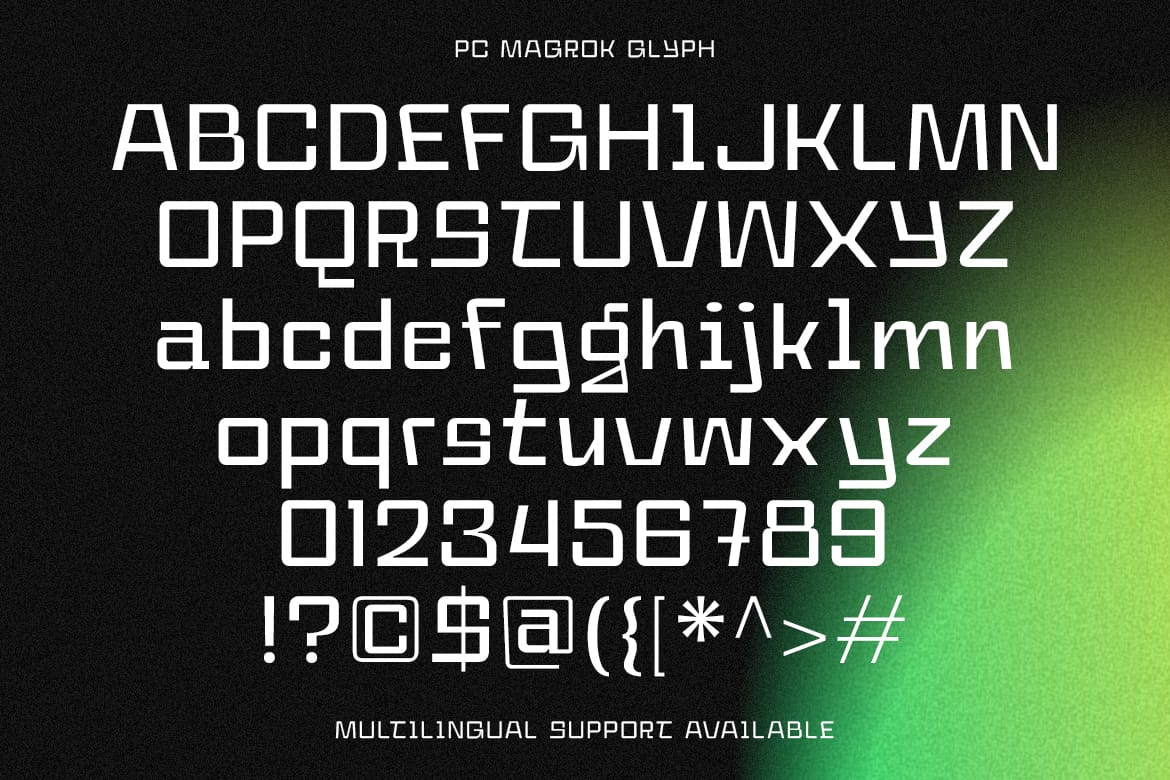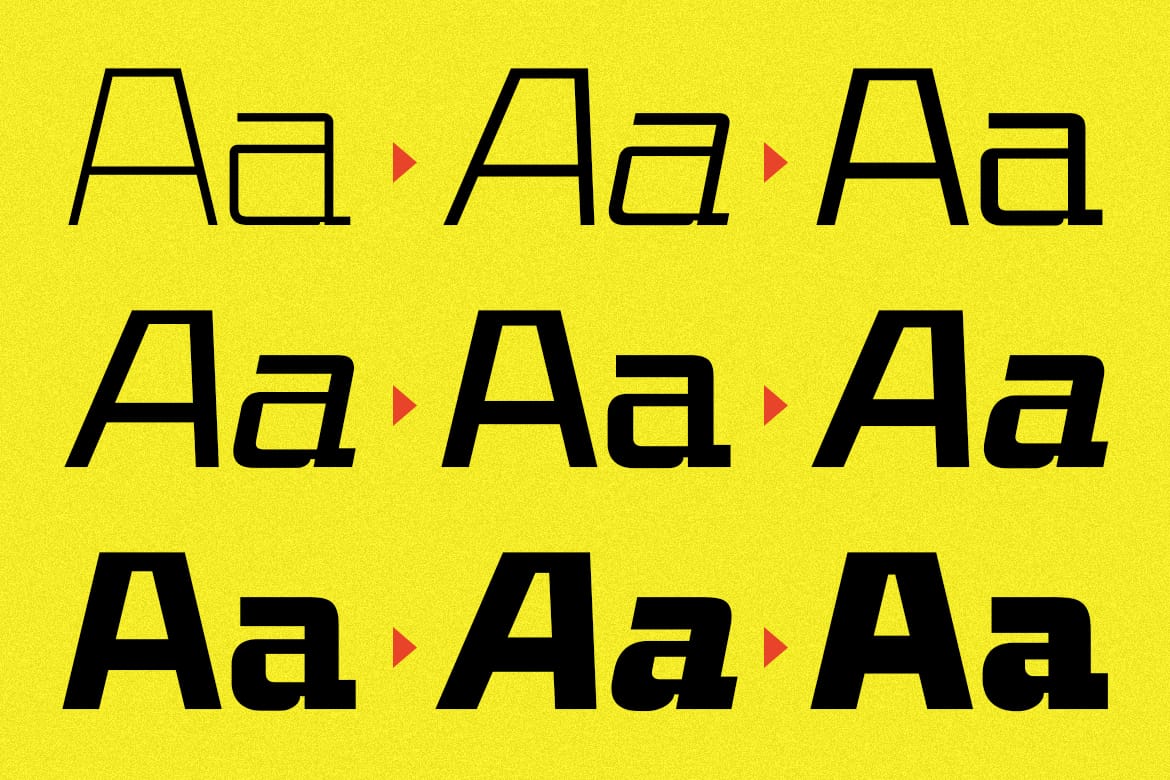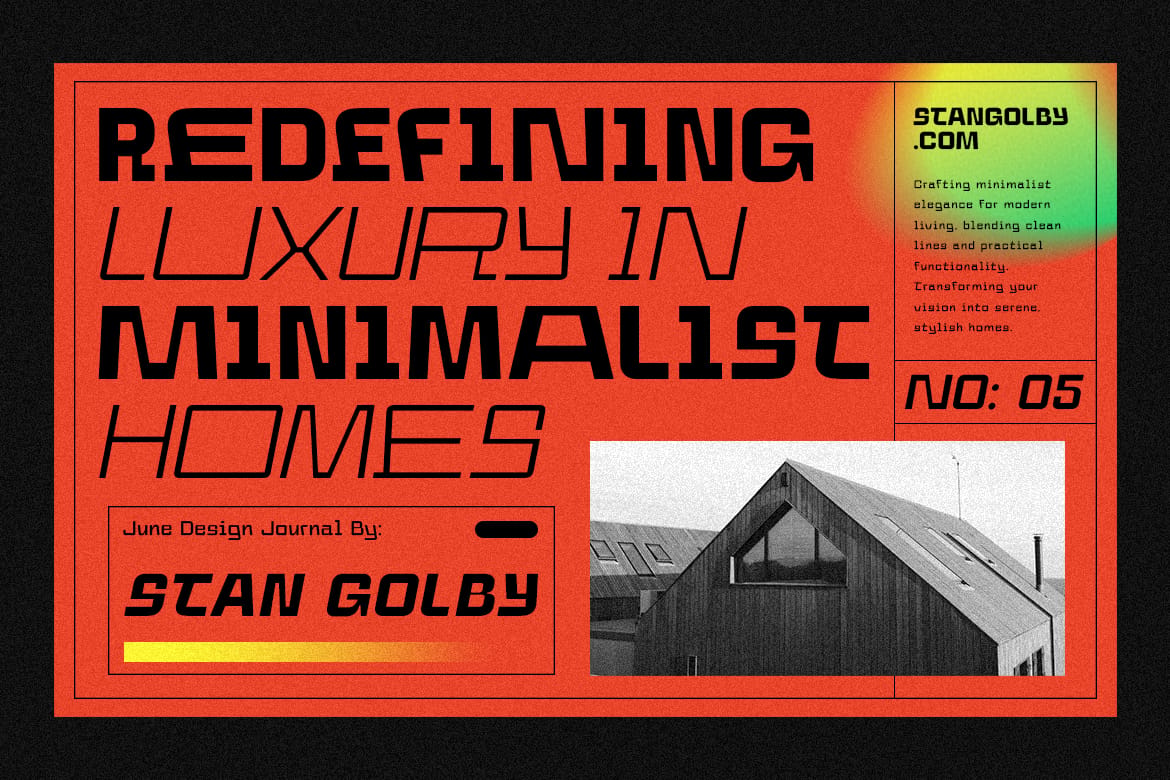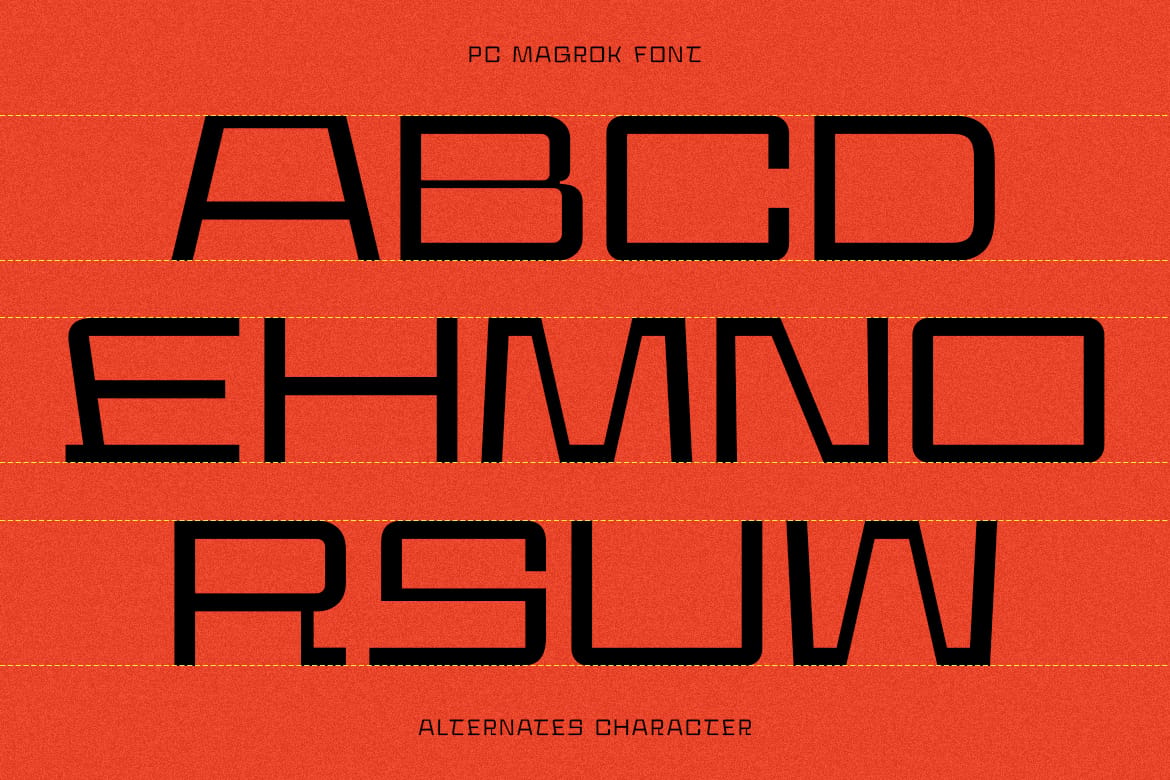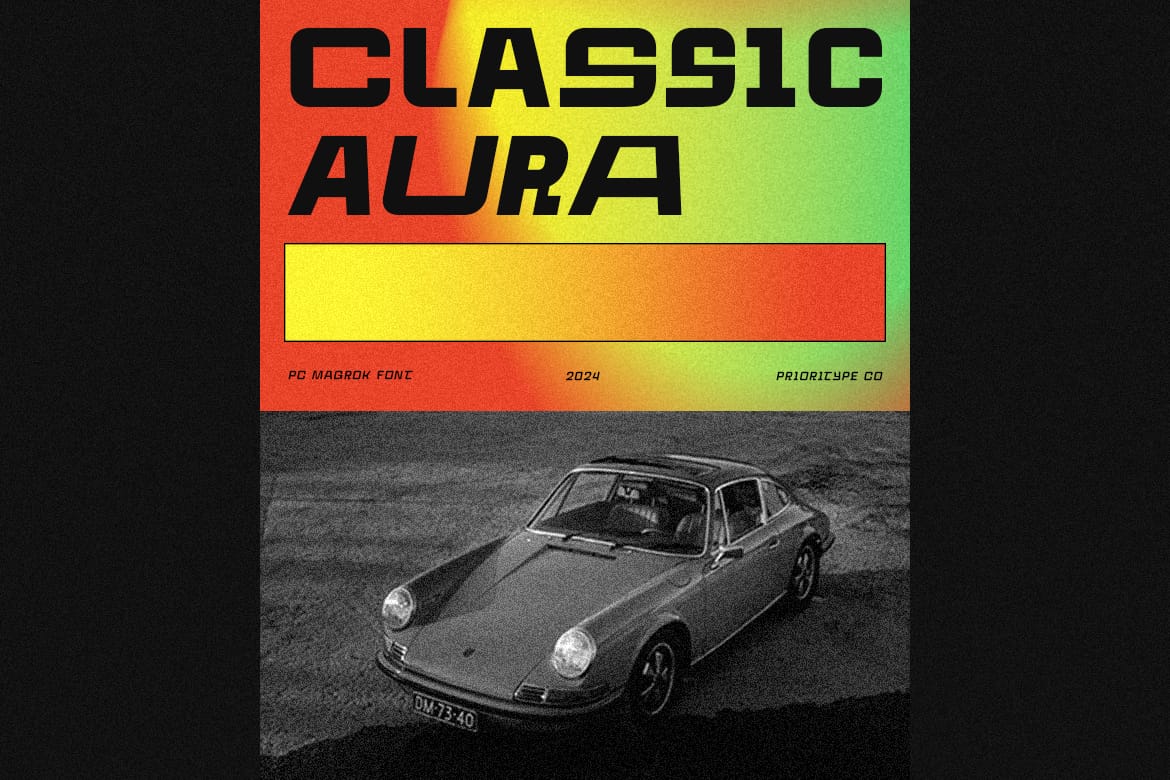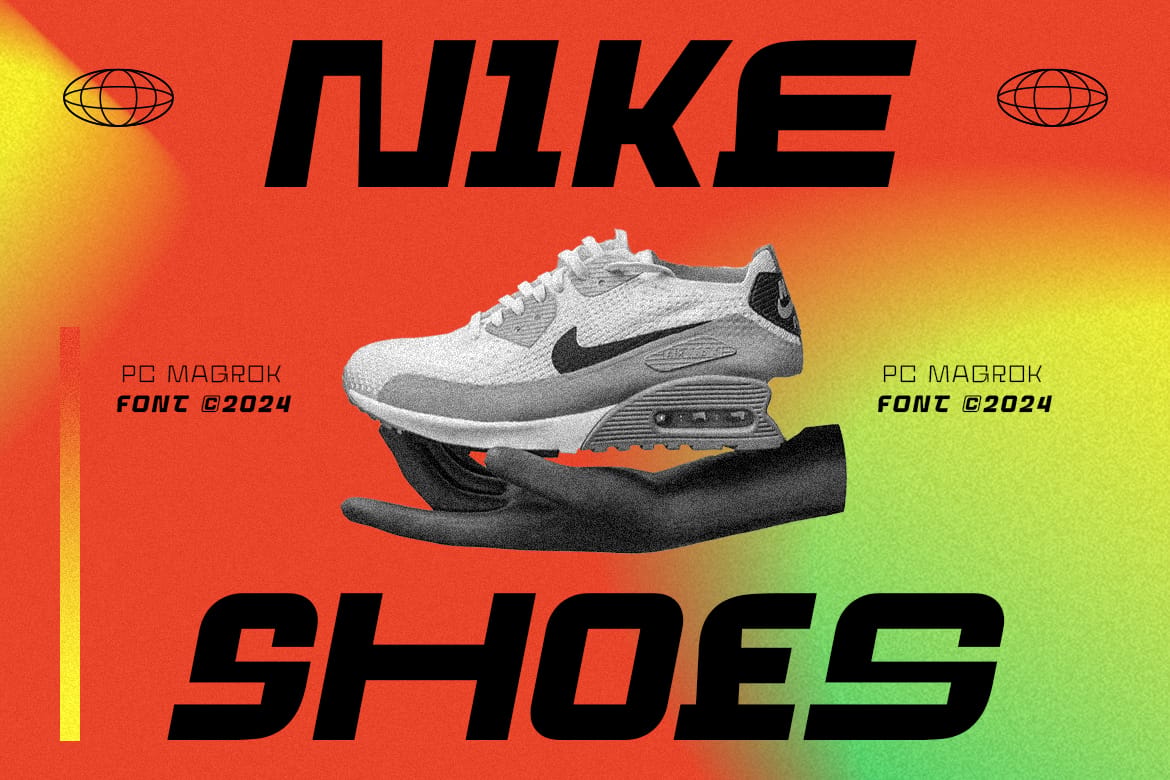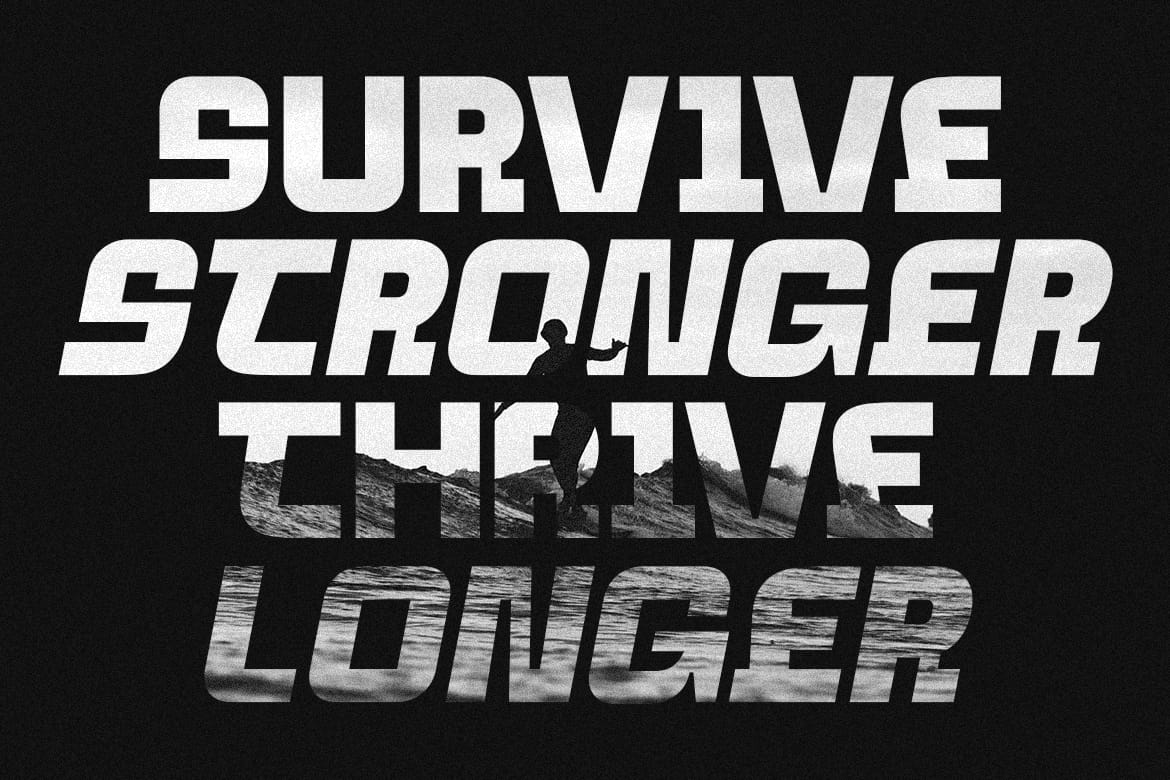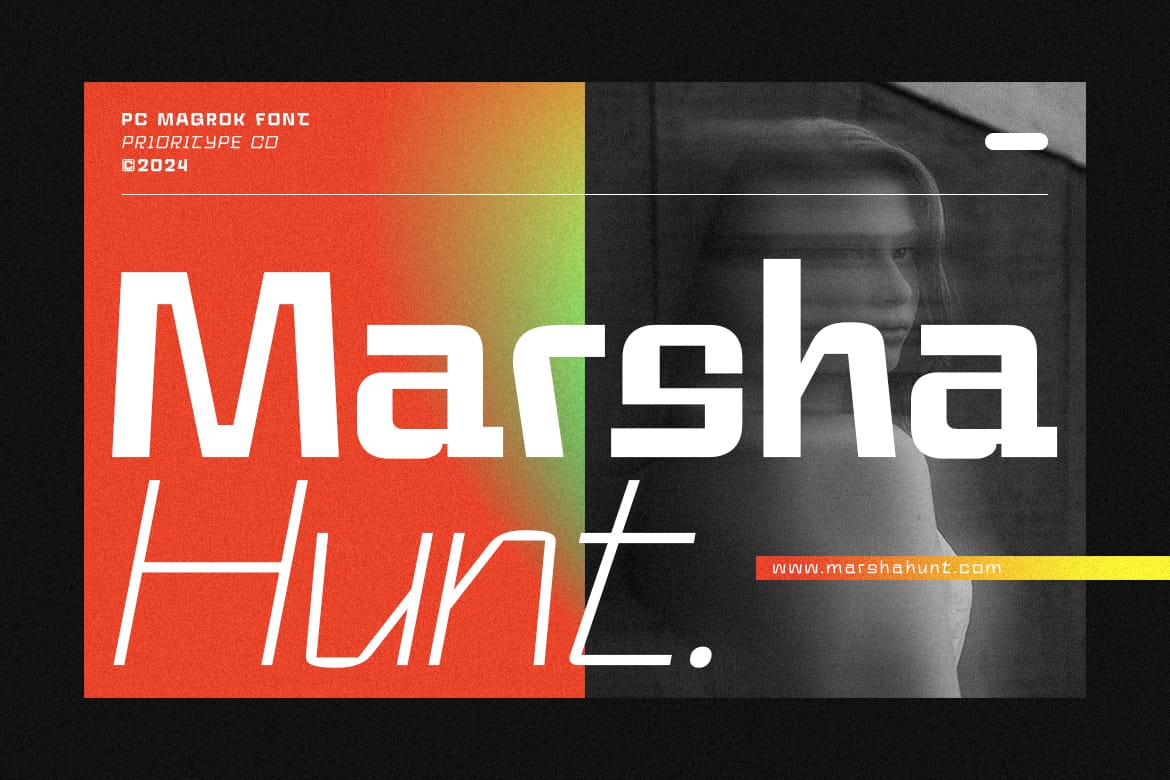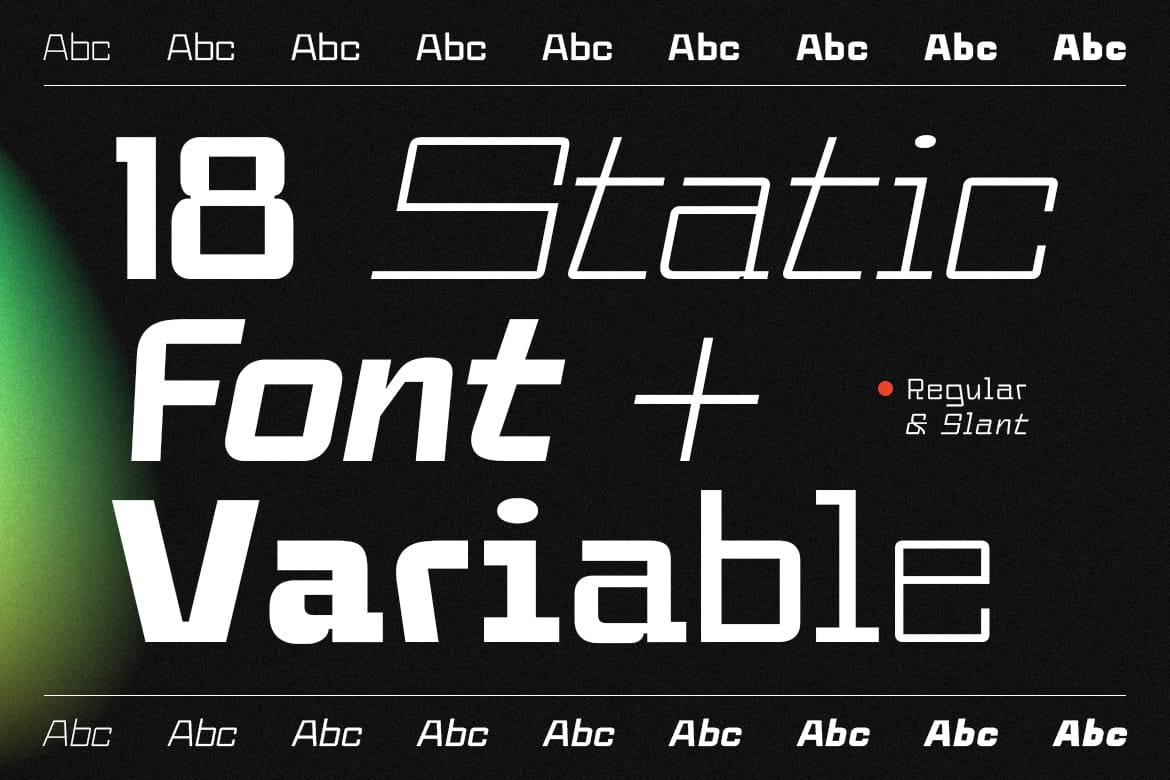
PC Magrok is a freestyle contemporary display font. 18 fonts available (Regular & Slant). Variable + Static font files are also available so you can play with them however you like. Suitable for logo, branding and poster design.
Features: Uppercase, Lowercase, Numeral, Punctuation, Multilingual & Alternates.
- 18 fonts: Regular and Slant styles
- Variable and static font files